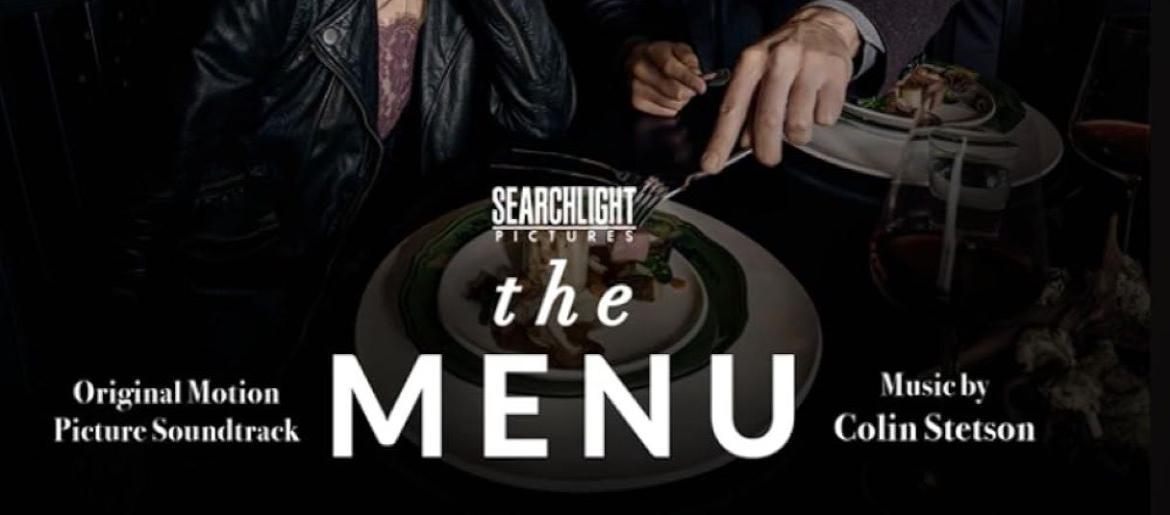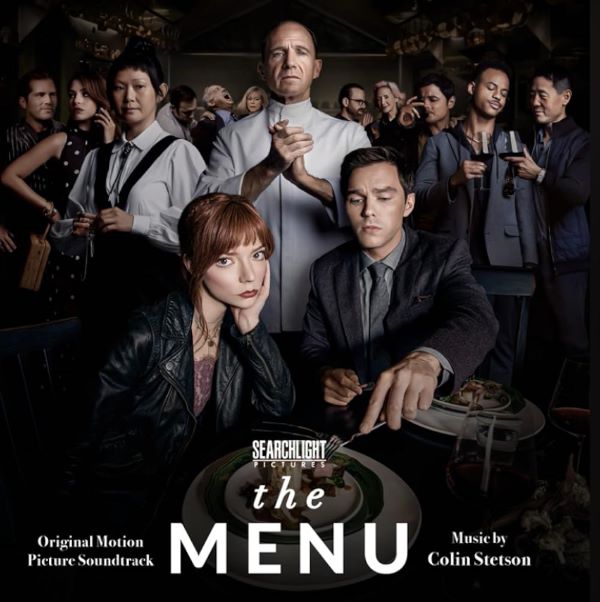
The Menu Font
What Font is The Menu(movie)?
The The Menu Font used in the film’s title is composed of two parts: the word “MENU” is set in Alilato Arabic Extra Bold, while the word “THE” is set in Linotype Didot eText Pro Italic. These are premium fonts. If you’re looking for more affordable options, we’ve found suitable free alternative fonts that capture the same bold and refined visual style.
About The Menu
The Menu (2022) is a dark comedy thriller directed by Mark Mylod. The story follows a young couple who travel to an exclusive island restaurant where a celebrated chef prepares a lavish menu — only the evening takes a sinister turn. The typography used in the title design reflects this duality: the strong, heavy “MENU” conveys opulence and formality, while the elegant italic “THE” delivers a touch of refinement and tension.